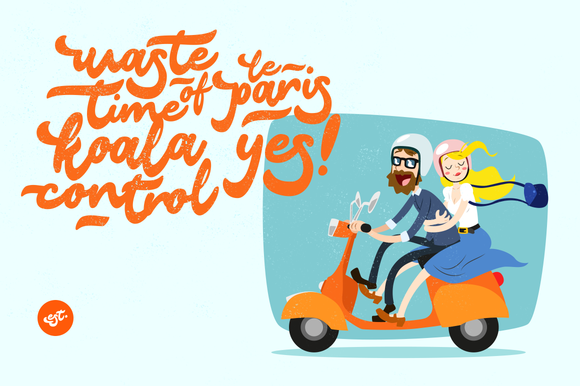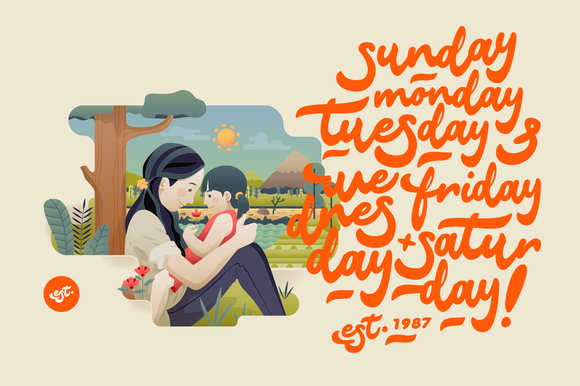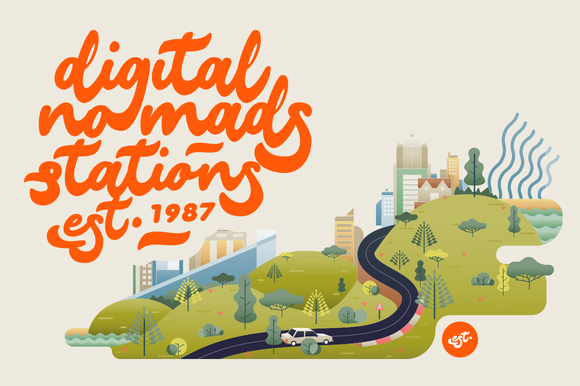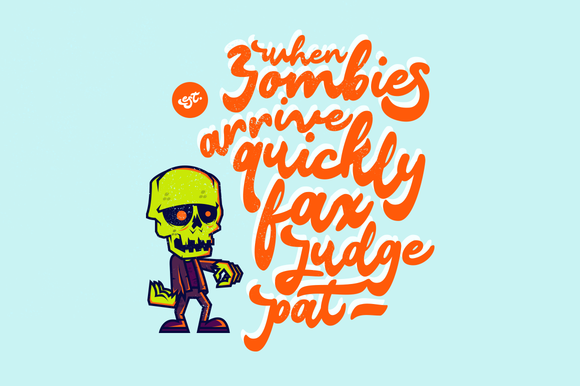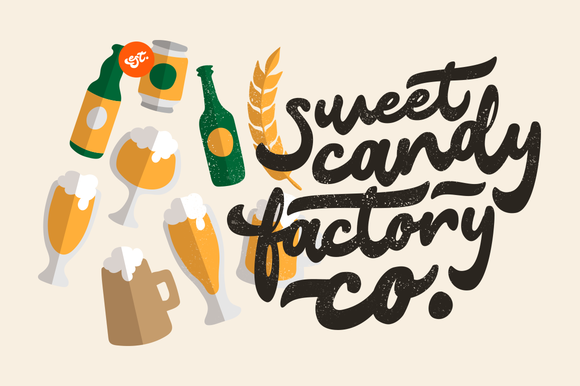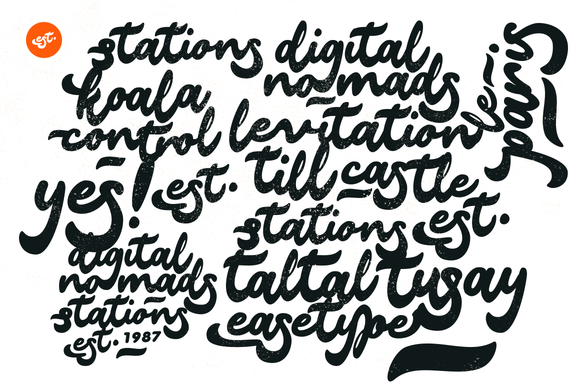
About Le Paris Font
Le Paris is a hand-lettered font designed to give the ultimate playful, personalized look & feel to your designs.
The Le Paris font is a font that adds personality to your work. All the letters are designed in such a way that the words you type are very easy to read and will leave a lasting impression.